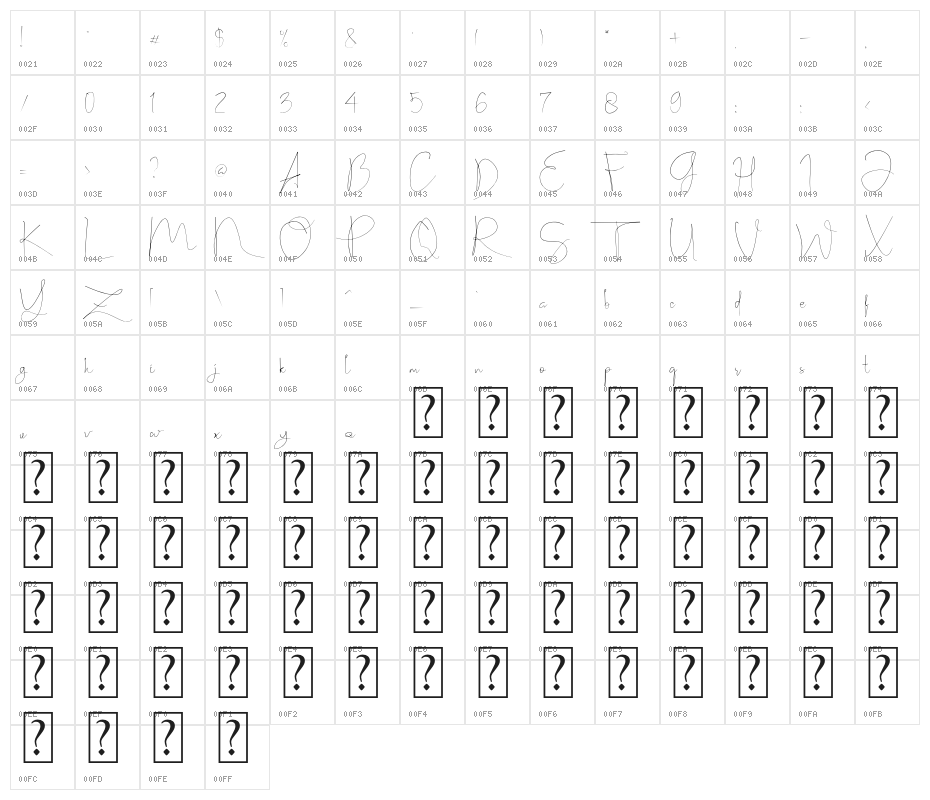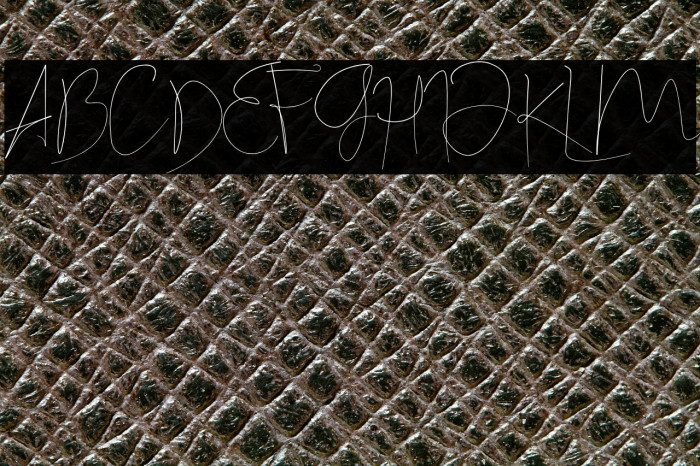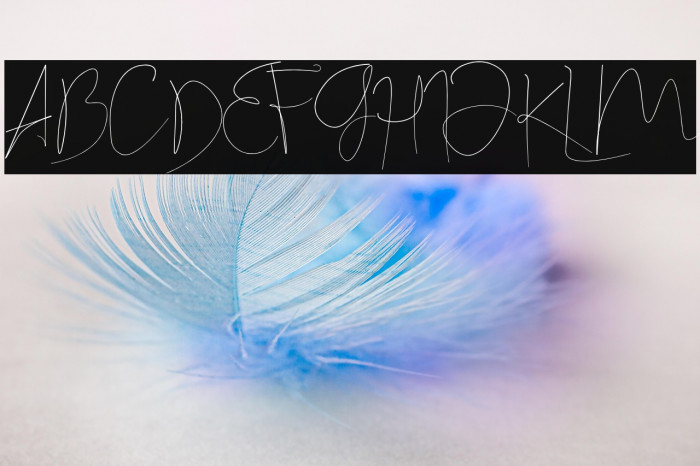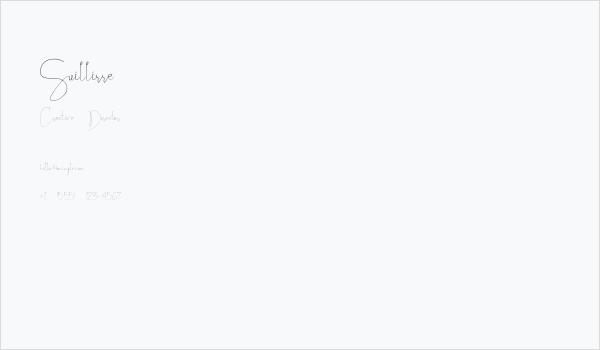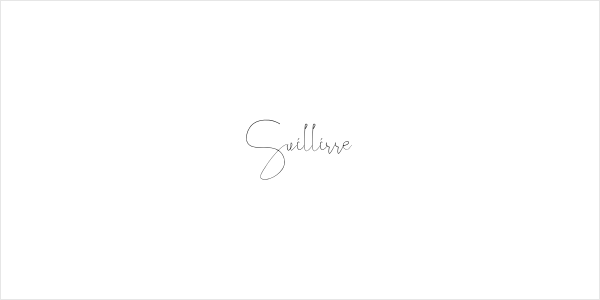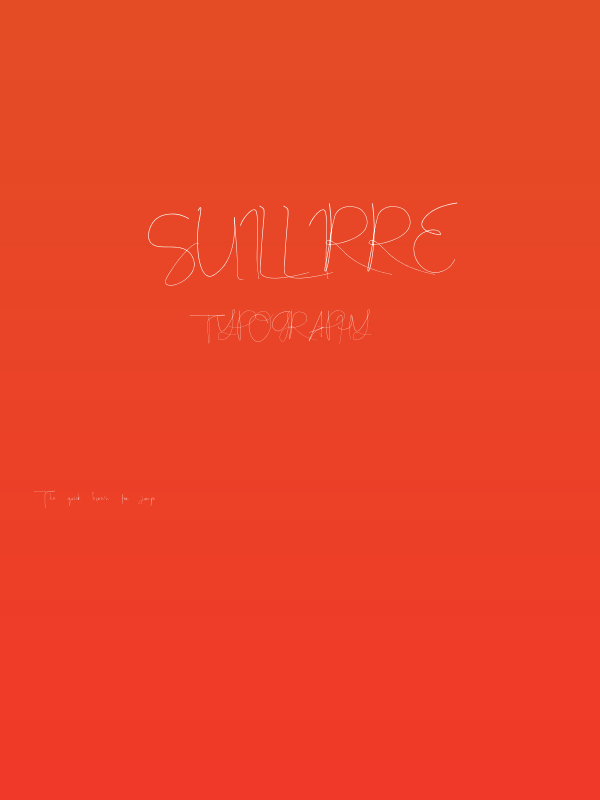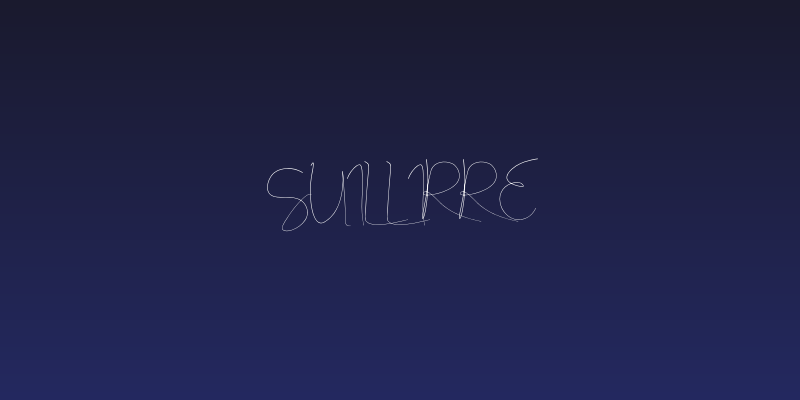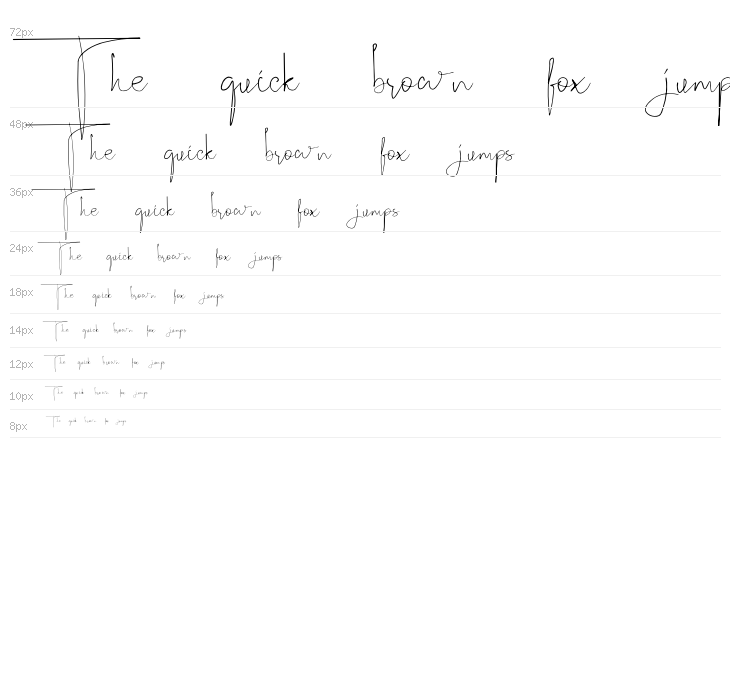
Suillirre Font
Suillirre Description
This font features a delicate and flowing script style, characterized by its thin, elegant strokes and graceful curves. The uppercase letters exhibit a whimsical and airy quality, with each character seamlessly connecting to the next. The lowercase letters maintain a consistent fluidity, enhancing the overall aesthetic with their intricate loops and swirls. Numbers and special characters are crafted with the same attention to detail, ensuring a cohesive look across all elements. The font's light weight and artistic flair make it ideal for projects that require a touch of sophistication and creativity.